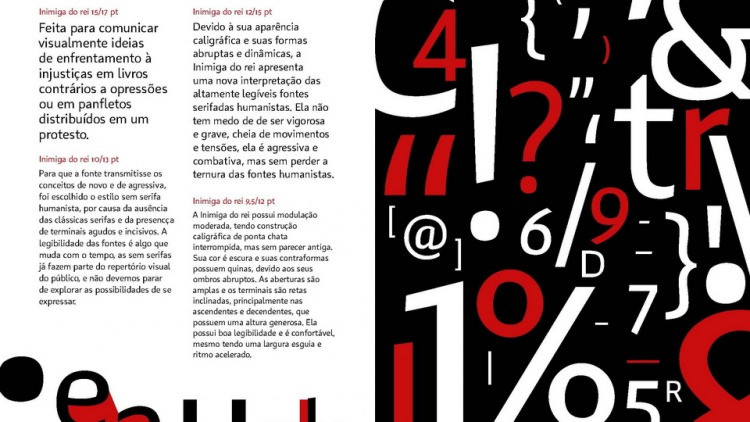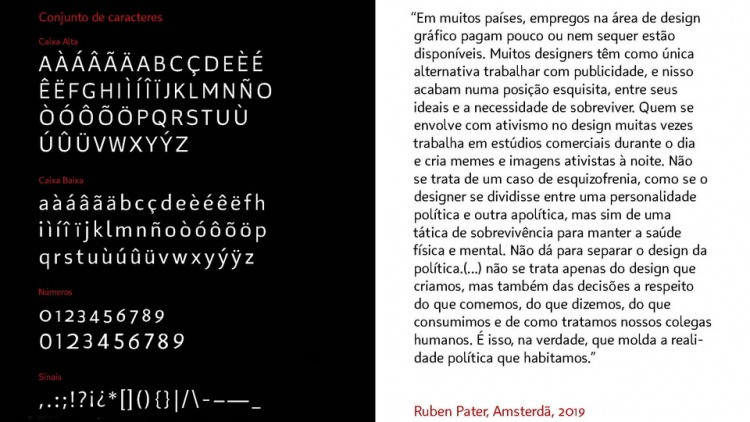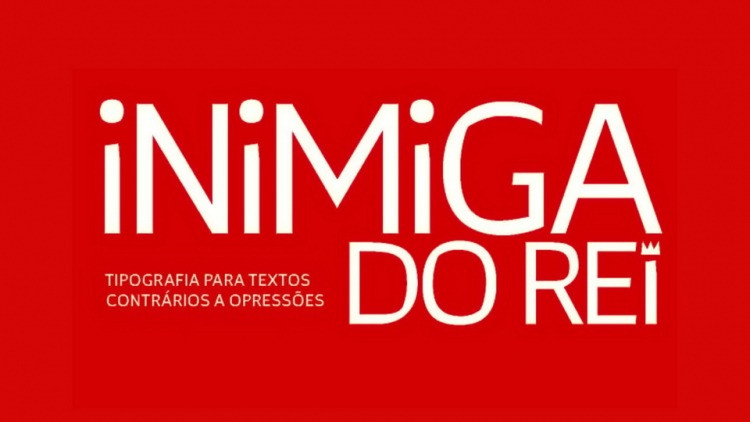
Inimiga Do Rei Sans Font
Introducing New Fonts, A wonderful collection for your various special projects. Inimiga do Rei is a sans serif typeface, the graduation project, created to be used in books that speak against oppressions such as sexism, racism, homophobia and class oppression.
His creative process began with a research on what domination is, how it happens, what are its consequences and how to apply criticism in the typographic project.